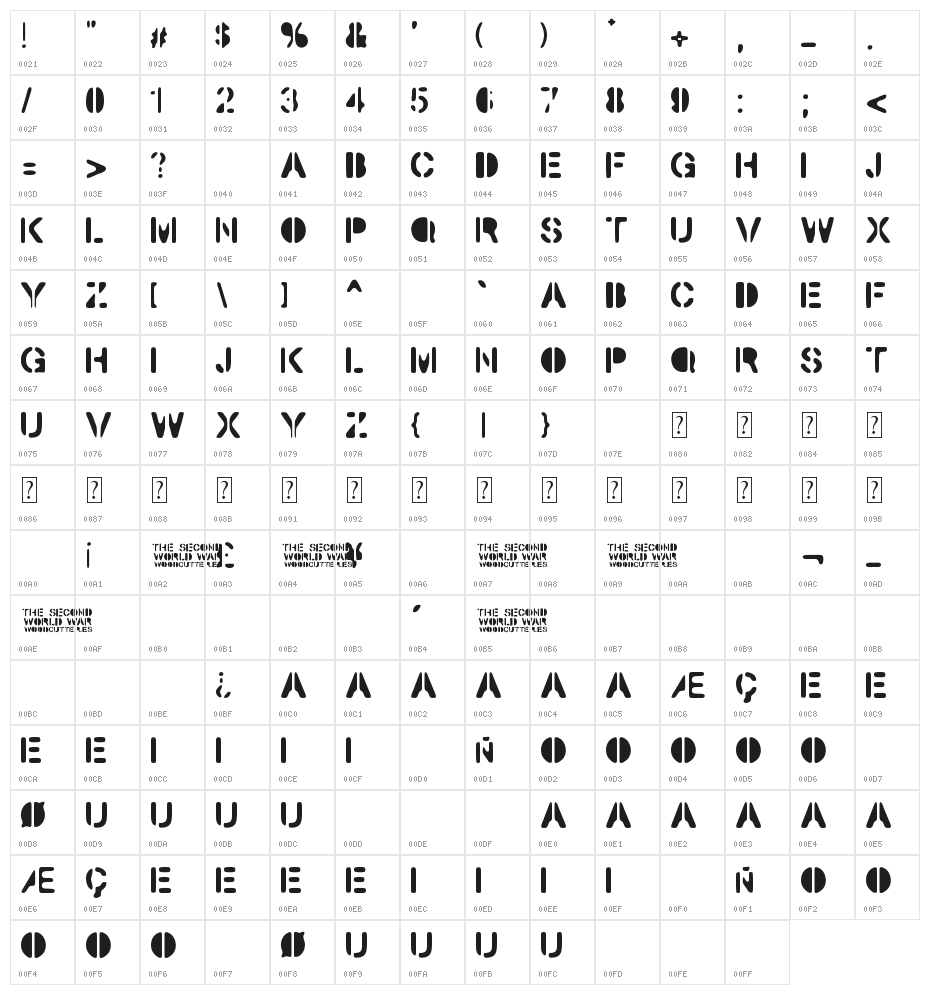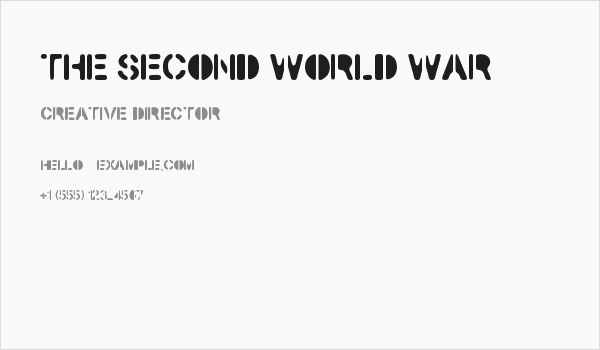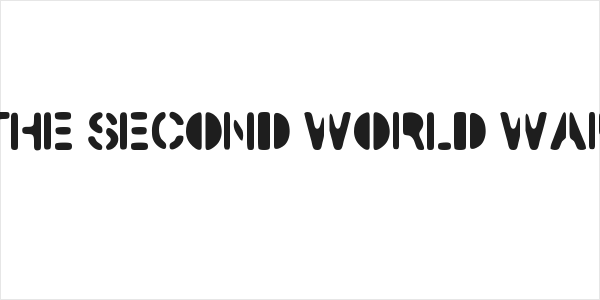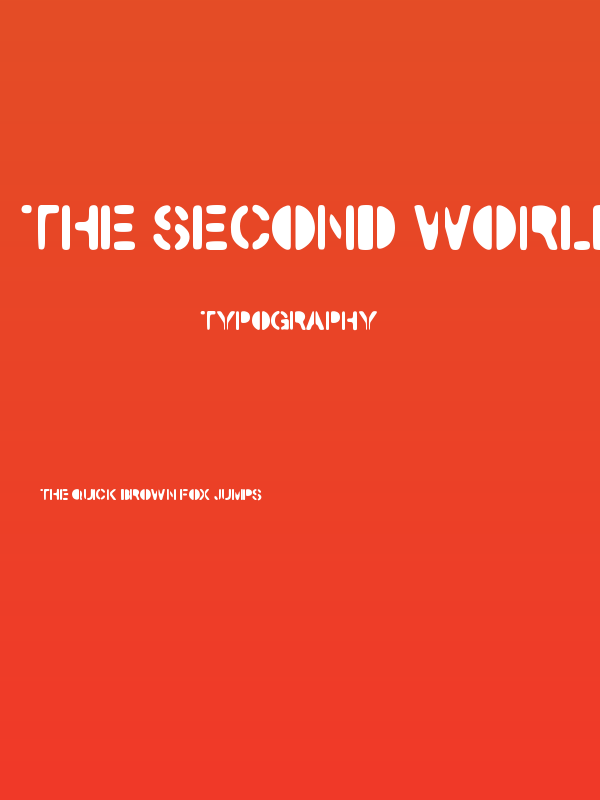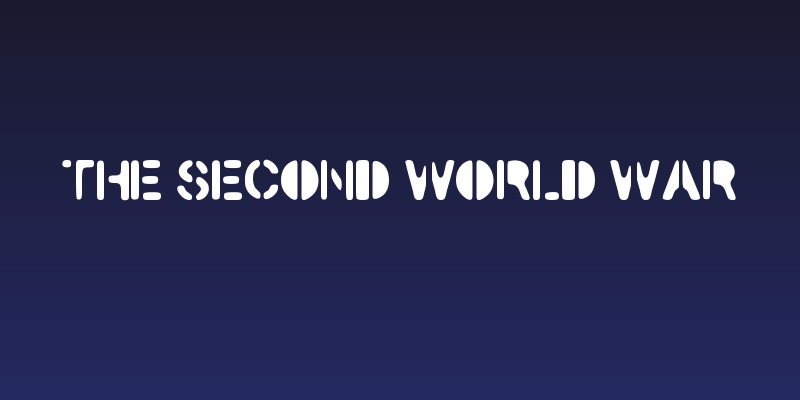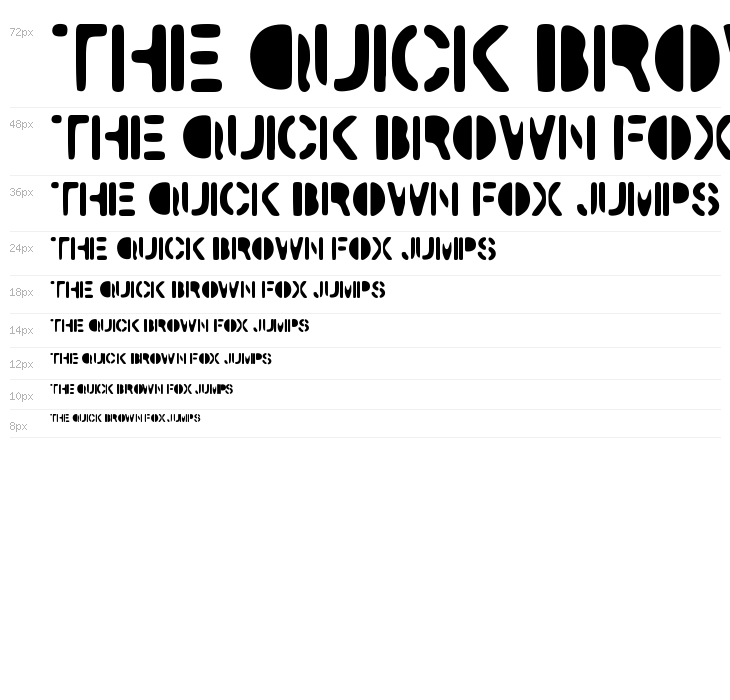
The Second World War Font
The Second World War Description
This font features a bold, stencil-like design with thick, solid strokes and cut-out sections that create a rugged, industrial feel. The characters are uniformly wide, giving them a strong presence and making them highly legible from a distance. The uppercase and lowercase letters share a consistent style, with rounded edges that soften the otherwise robust appearance. Numbers and special characters maintain the same boldness and cut-out aesthetic, ensuring a cohesive look across all elements. This font's unique style is reminiscent of military or industrial signage, making it ideal for projects that require a strong, impactful visual statement.
| Overall Style | Industrial, Rugged |
| Proposed Projects | Perfect for military-themed designs, industrial signage, posters, and branding that requires a strong visual impact. |